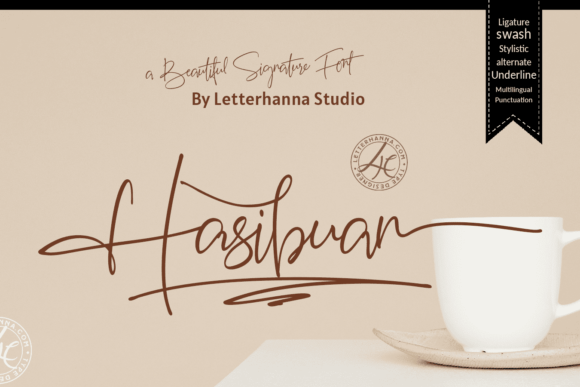
Dive into the world of Hasibuan, a captivating script font that dances across digital canvases with the authenticity of a handwritten masterpiece. Each letter is a testament to the beauty and elegance of traditional penmanship, remastered for the modern age.
With its sweeping swashes, enchanting ligatures, and a treasure trove of stylistic alternates, Hasibuan invites you to unleash your creativity. From logos and branding that command attention to invitations that whisper romance, this font empowers you to leave an unforgettable impression.
Imagine your social media posts adorned with the charm of Hasibuan, captivating your audience with its effortless grace. Engage them with advertisements that exude sophistication, and elevate your product packaging with designs that entice at first sight.
Hasibuan's versatility extends to photography, watermarks, and special events, where it adds a touch of timeless elegance to every moment. Its PUA encoding ensures that you can effortlessly access its full repertoire of glyphs and ligatures, granting you the power to craft truly exceptional designs.
Embrace the artistry of Hasibuan, and watch as your digital creations blossom with the allure of handwritten beauty. Let every stroke and flourish captivate your audience, leaving them with a lasting impression of your impeccable taste and creativity.